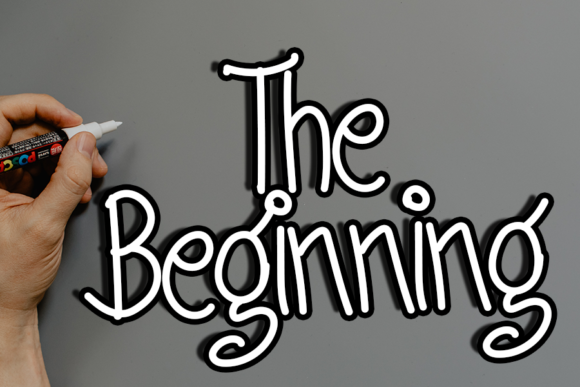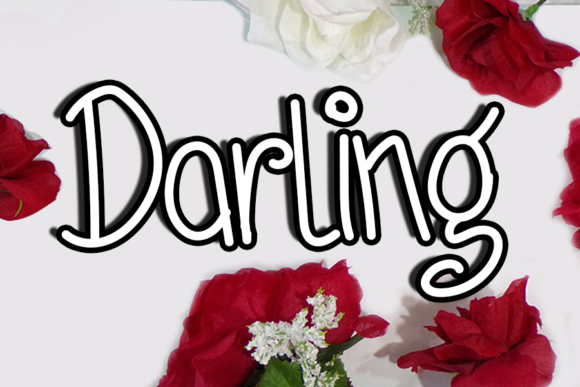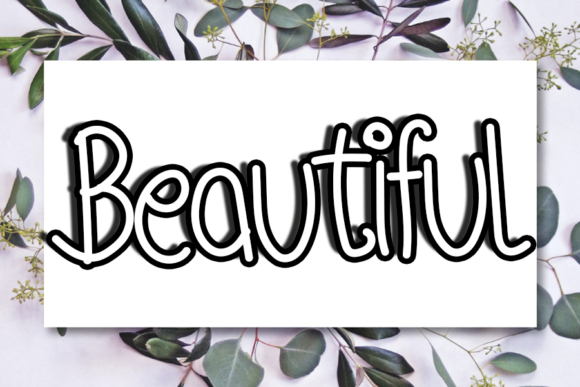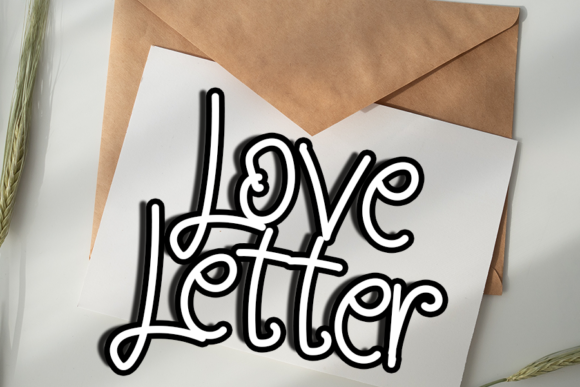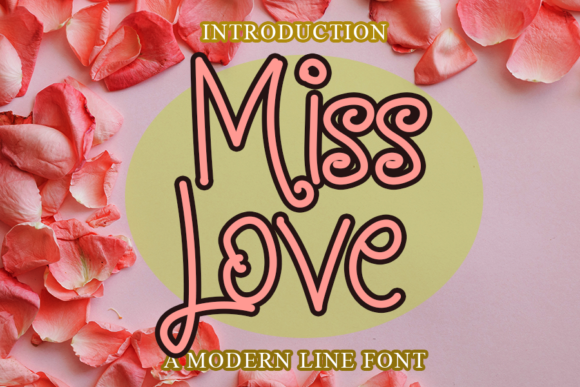
Miss Love
About Miss Love Font
Miss Love is a neat and trendy handwritten font. Designed to become a top choice, this font has the potential to bring each of your creative ideas to the highest level!